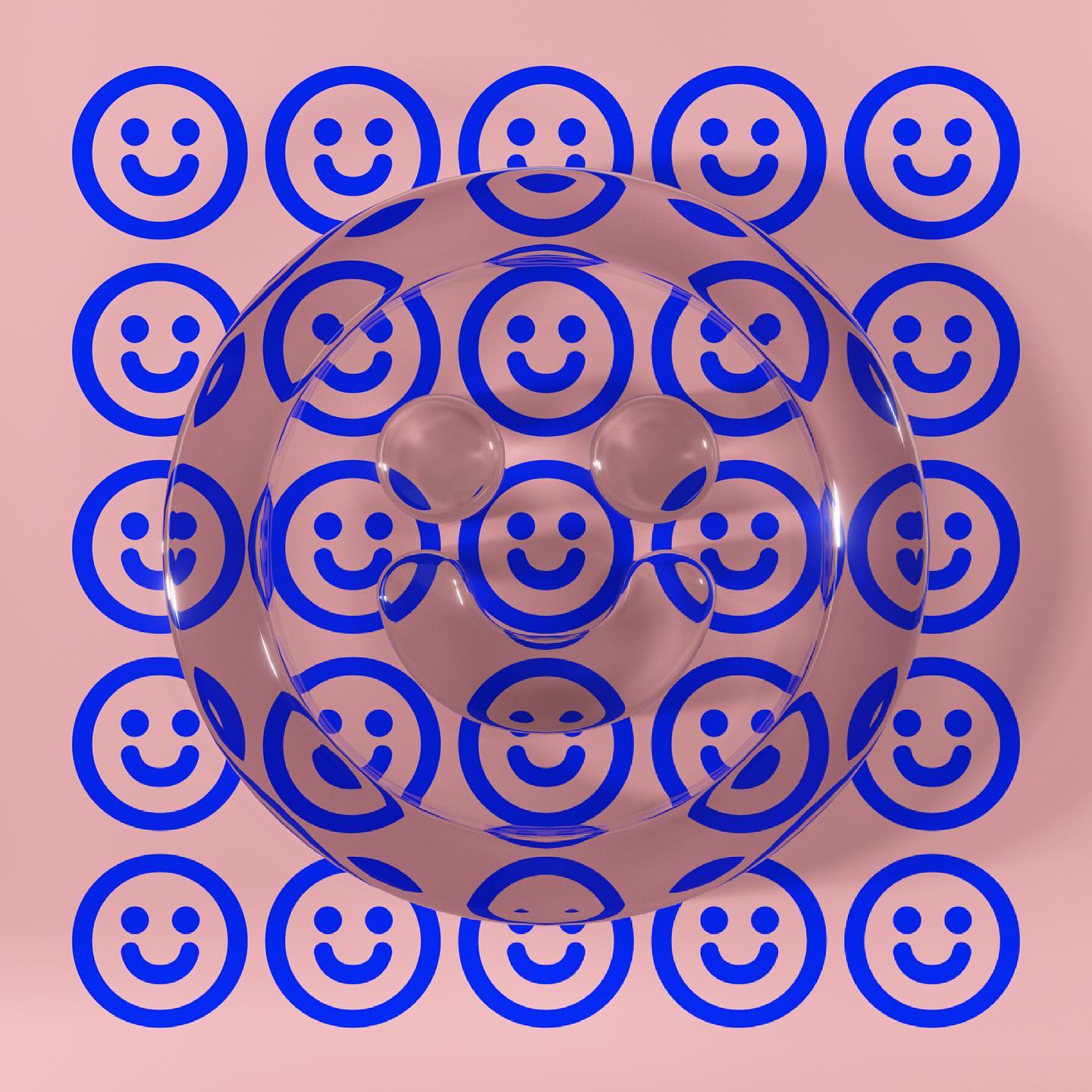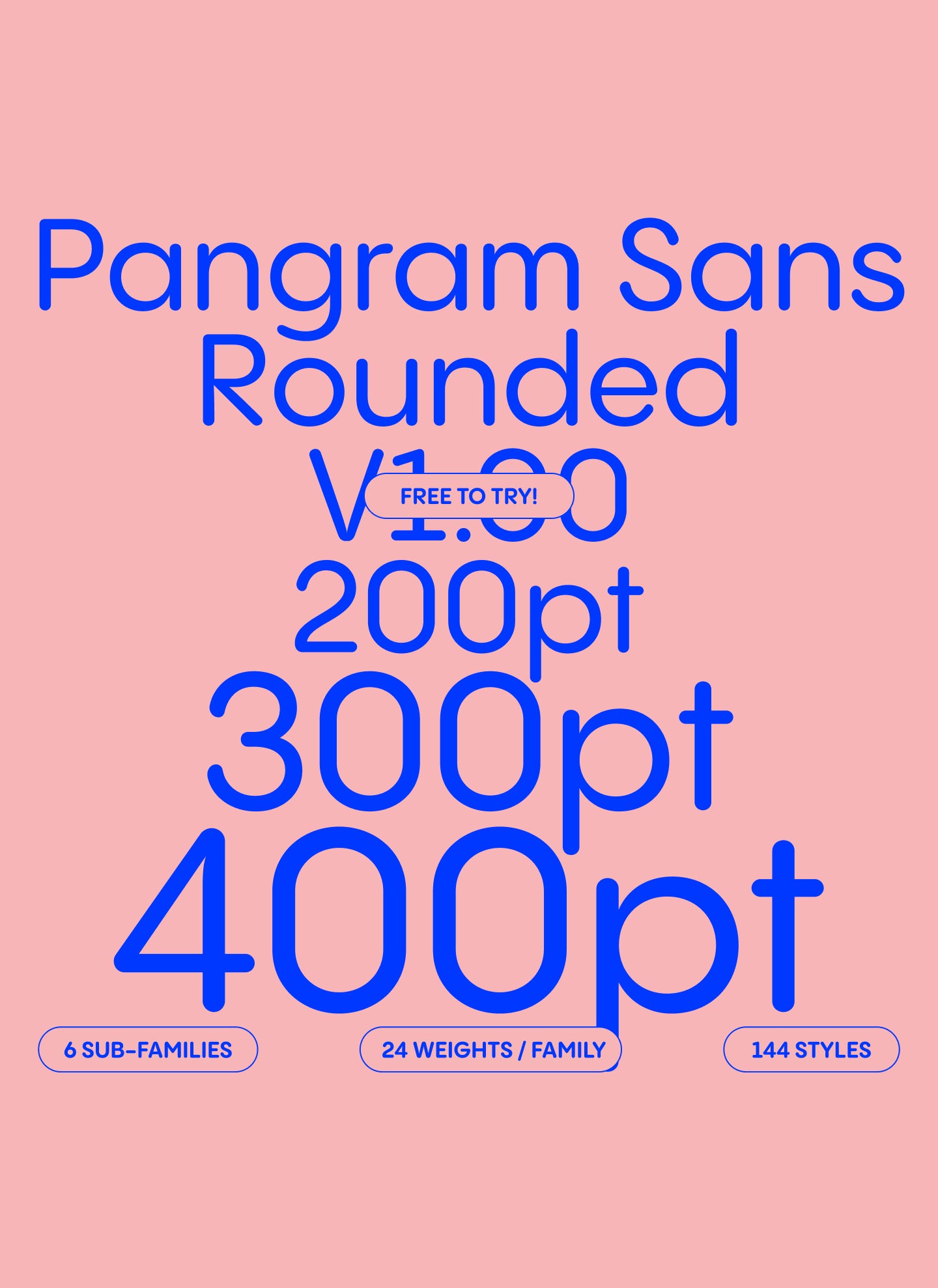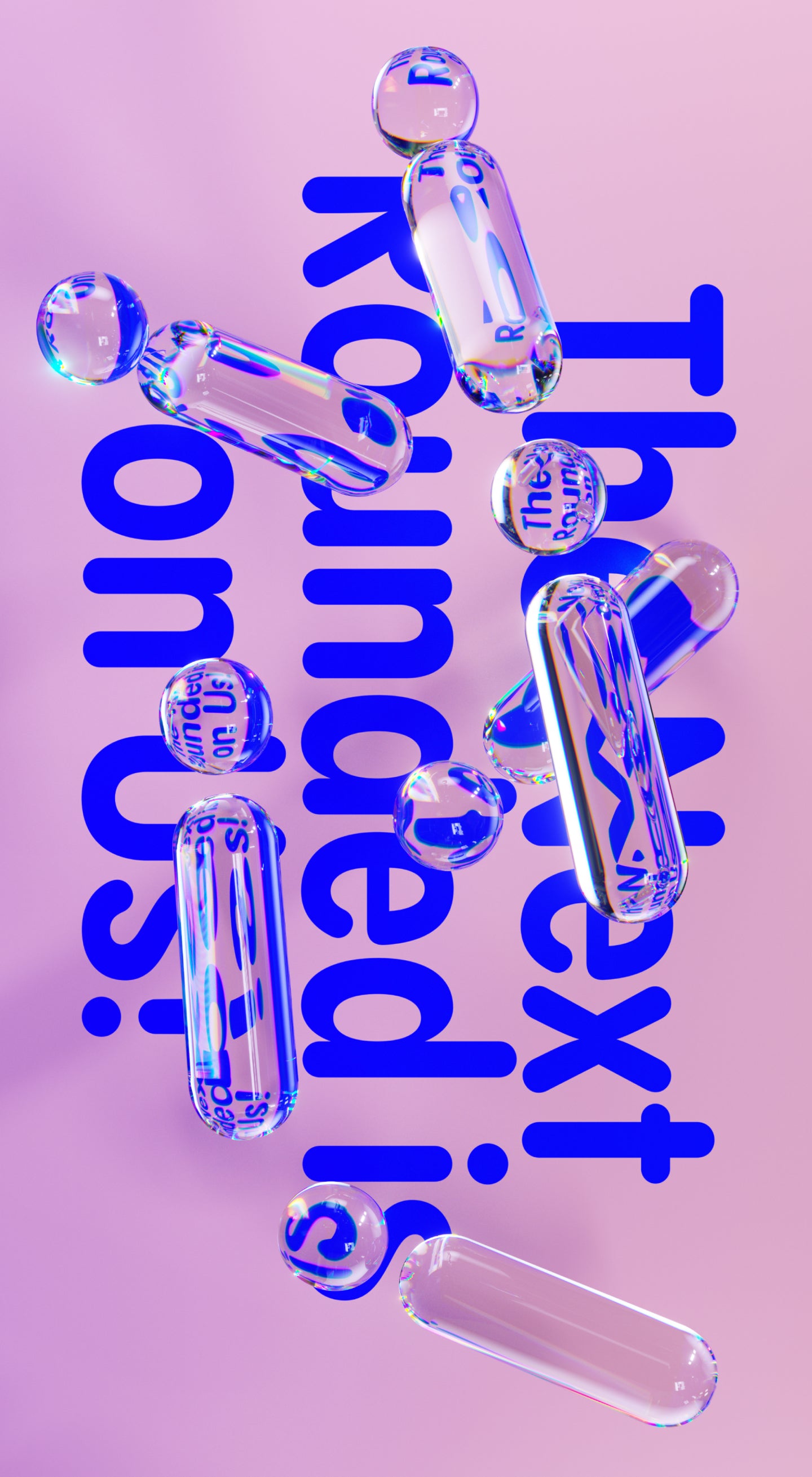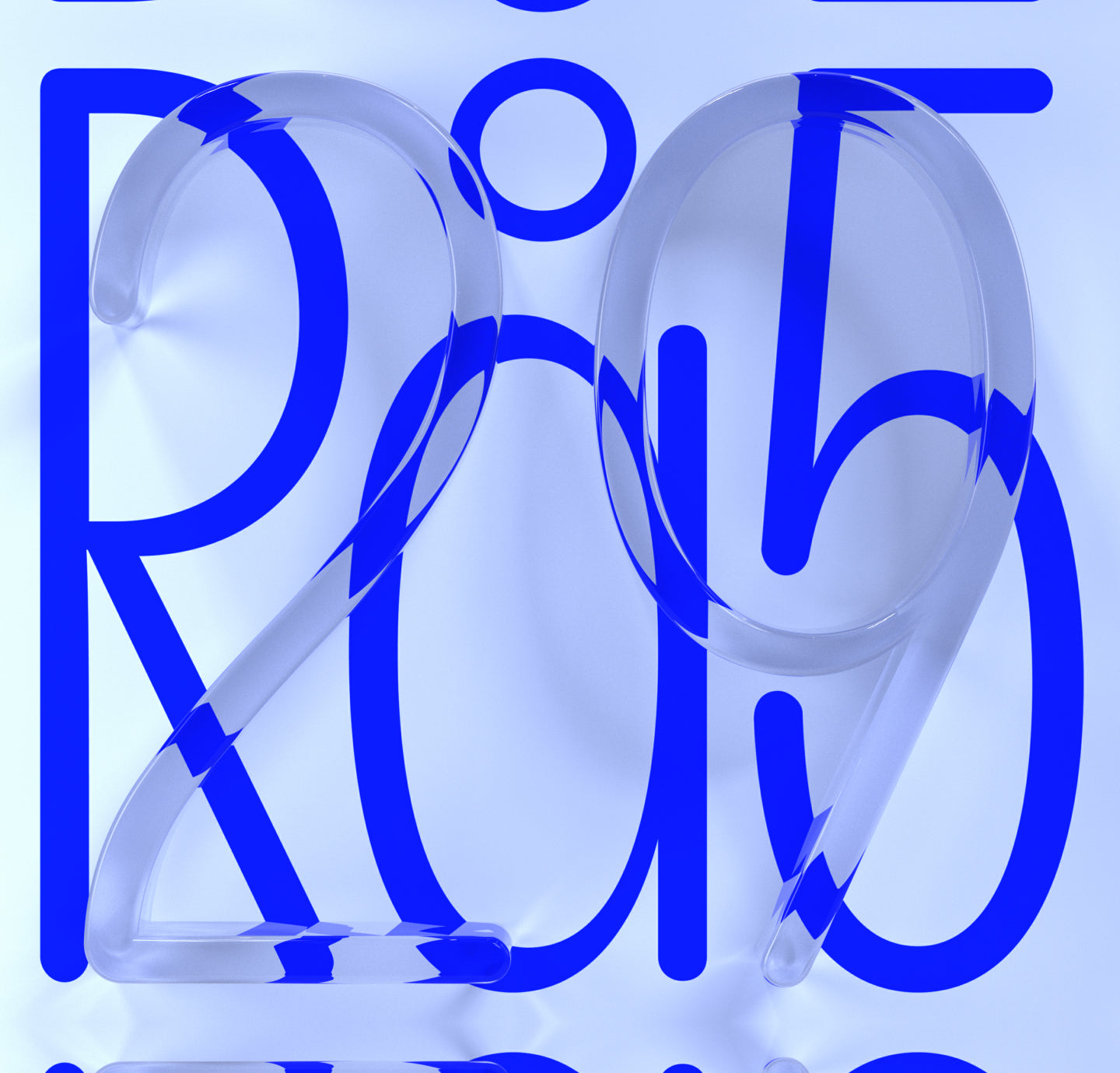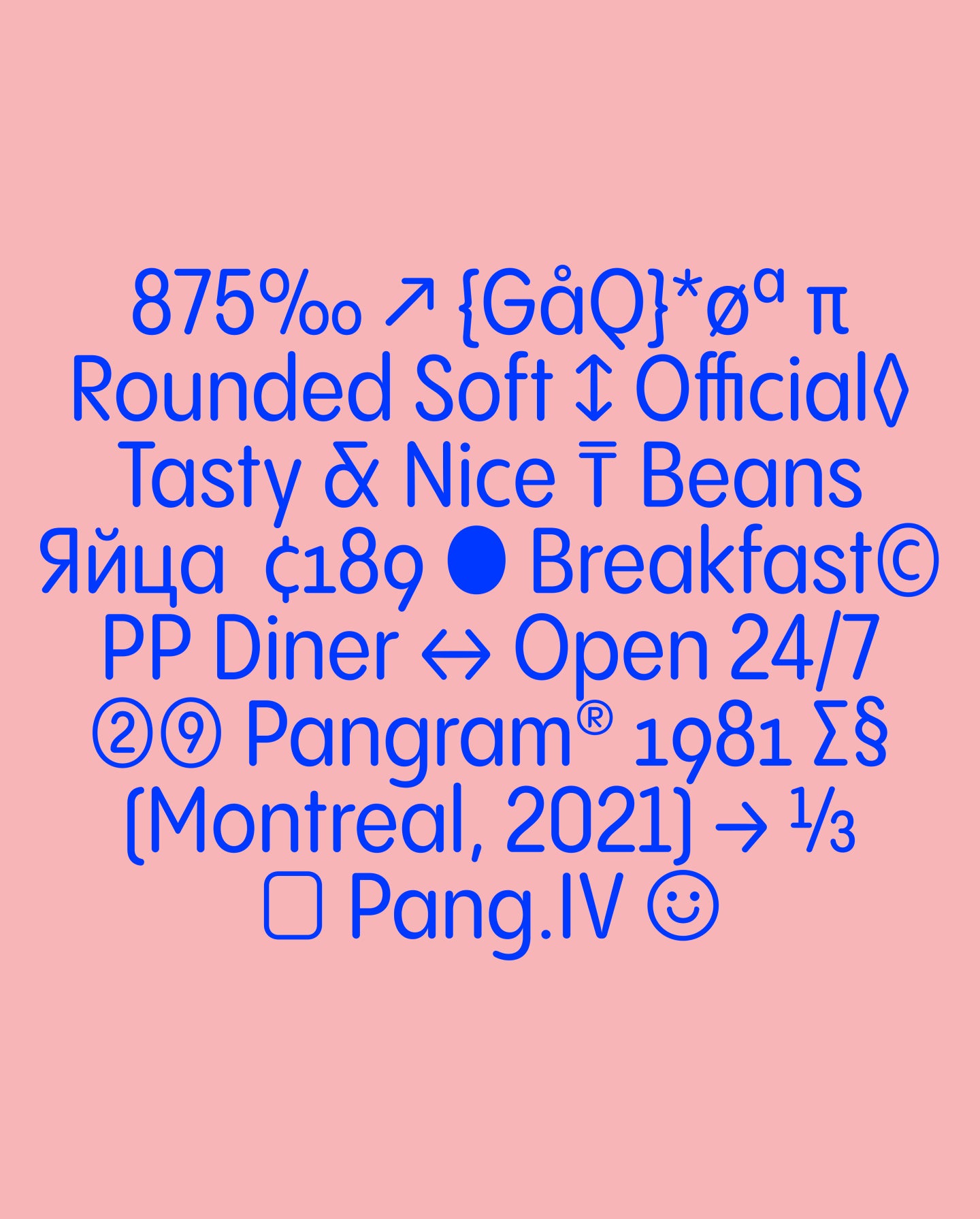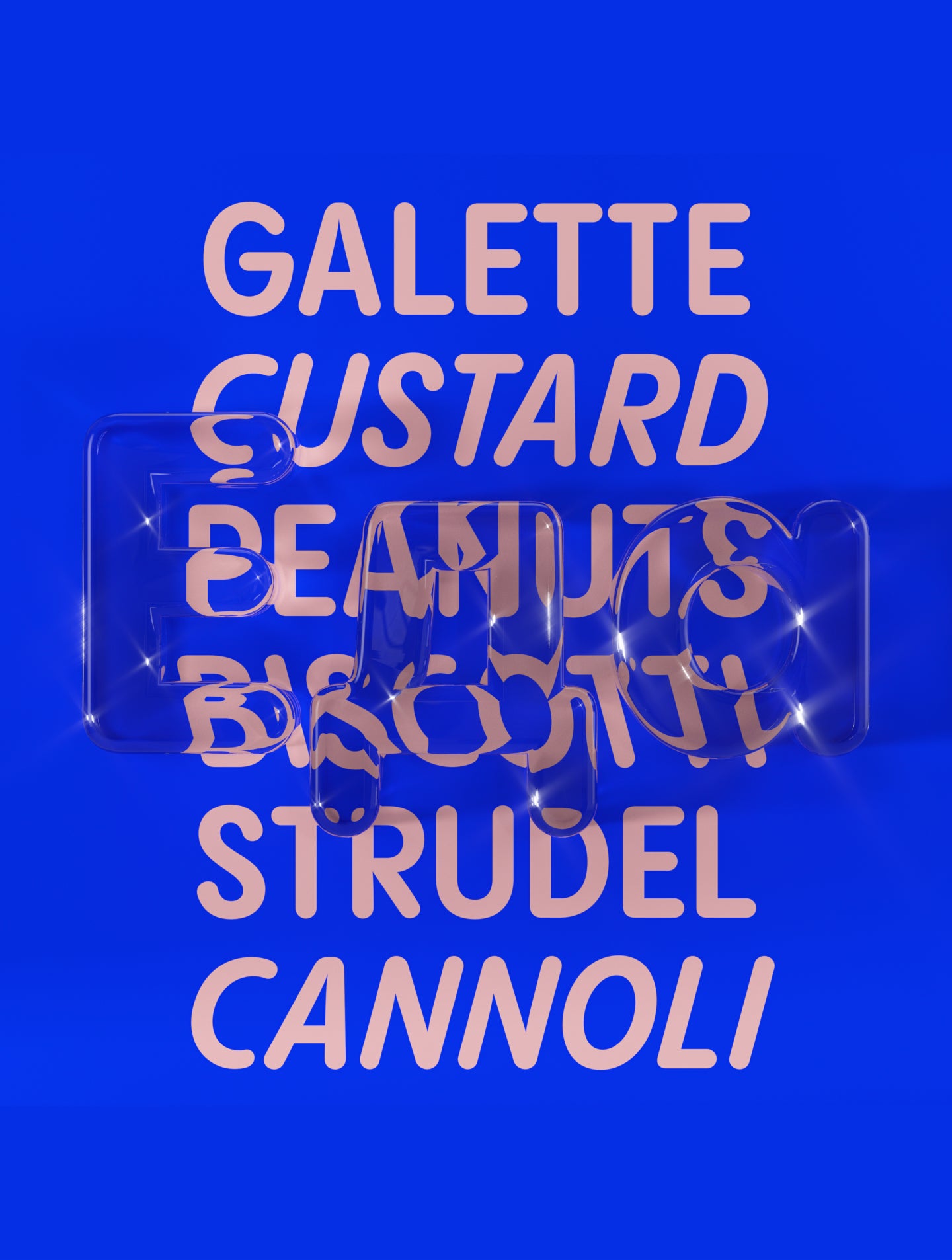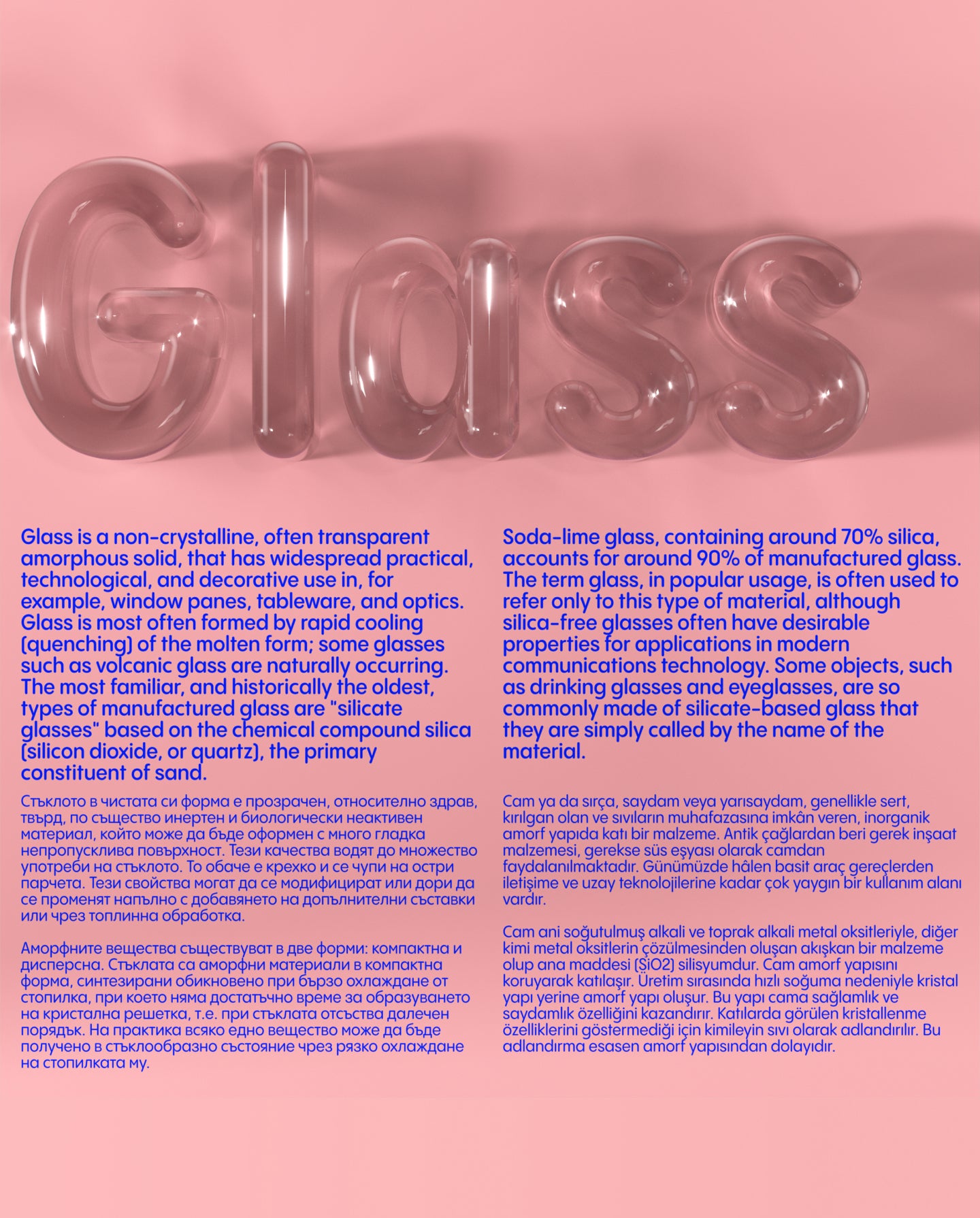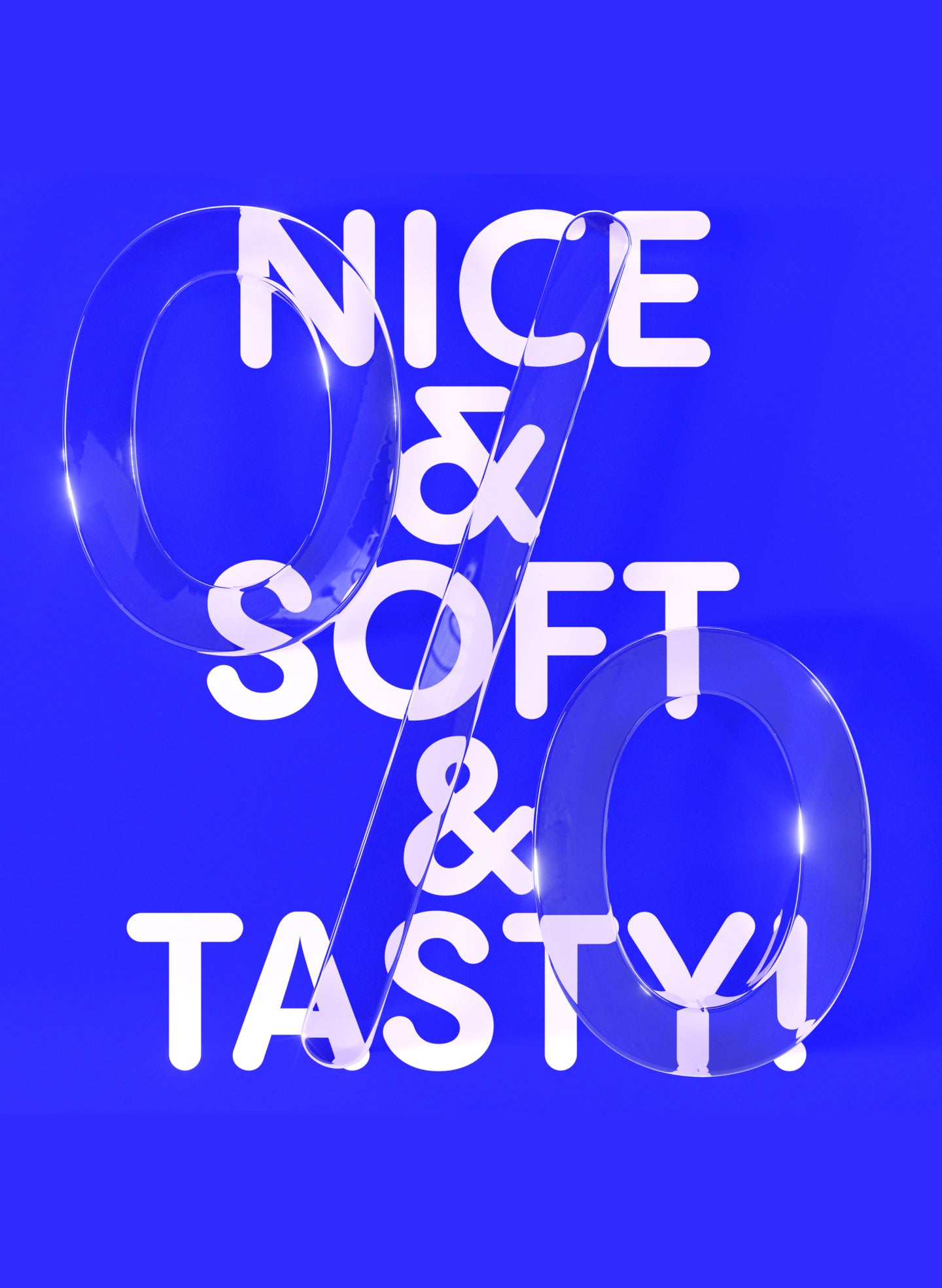
Pangram Sans Rounded
Same geometry, friendlier face—this is type that smiles back.
Rounded Off. Dialed In.
Pangram Sans Rounded is the more fun and playful sibling of Pangram Sans. It still remains a powerful and extensive geometric workhorse with 144 styles but with a more approachable side.
It's in its bolder weights that this typeface truly becomes unique. It also includes support for the Cyrillic Alphabet. Inspired by some of the greatest geometric typefaces, this free to try quality font family will surely be your next “go to” rounded font to uplift your designs.
6 Widths X 24 Styles (144 Styles Total) with 772 Glyphs each
Including Cyrillic Support